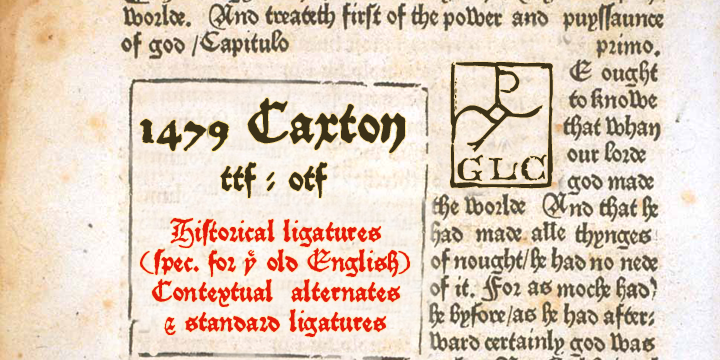
1479 Caxton
The famous calligrapher William Caxton from Westminster had defined 2 font families in late 1400’s for old English and Latin Language. These 2 font families built the inspiration for 1479 Caxton Family. Published by GLC, this one normal style font contains most of the Old English and Latin Abbreviations and Ligatures, those missing were added … Read more